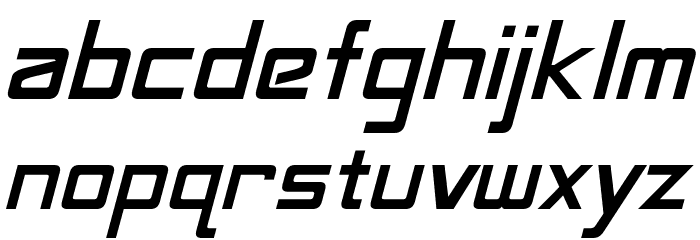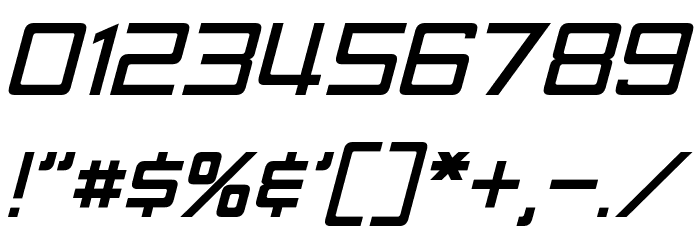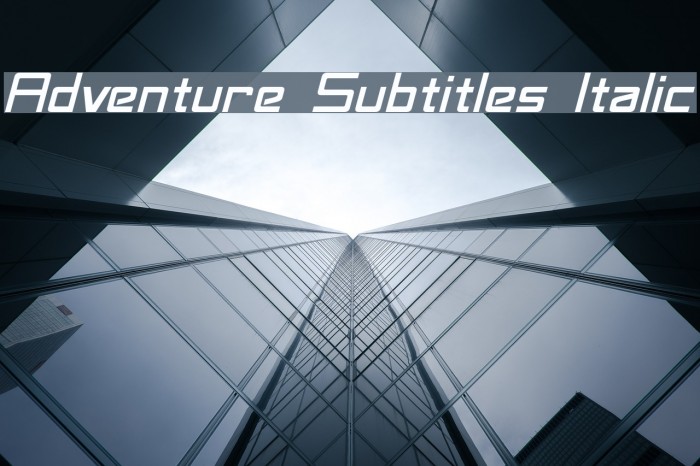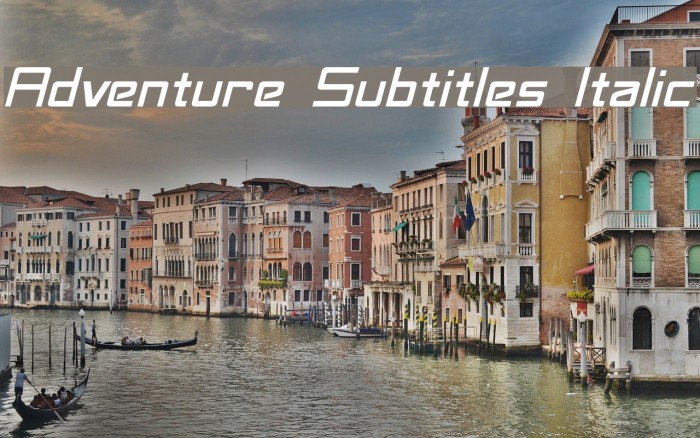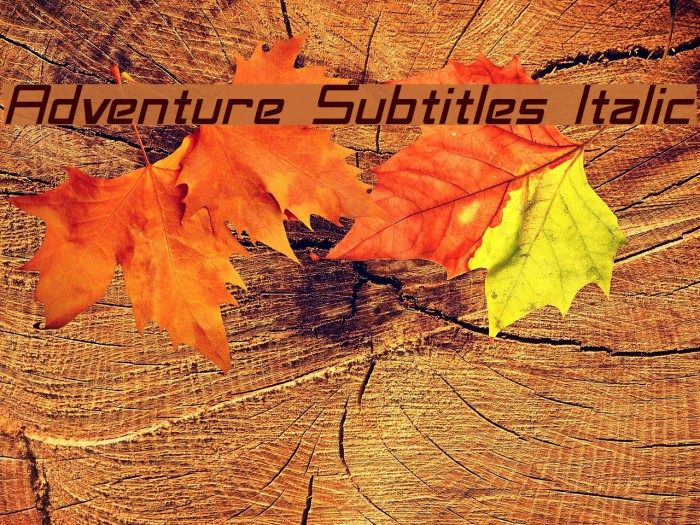
Adventure Subtitles Italic Font
This font features a sleek, italicized design with a modern and futuristic appeal. The characters are slightly condensed, giving a streamlined and efficient look. The uppercase letters are bold and angular, while the lowercase letters maintain a consistent slant, enhancing the dynamic feel. Numbers and special characters follow the same stylistic cues, ensuring uniformity across all text elements. The font's clean lines and geometric shapes make it highly legible, even at smaller sizes, while the italic style adds a sense of motion and energy.
A modern, italicized font with a sleek, futuristic design.
- Proposed Projects: Ideal for use in technology branding, video game interfaces, sci-fi movie titles, and modern advertising campaigns.